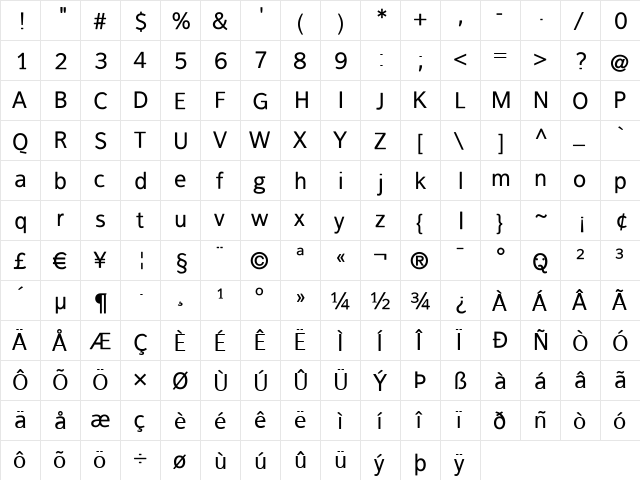
FranKleinMedium Regular
Design Context for FranKleinMedium Typeface
FranKleinMedium offers clean, dependable letterforms without strong stylistic allegiance, making it a practical choice for designers who need flexibility.